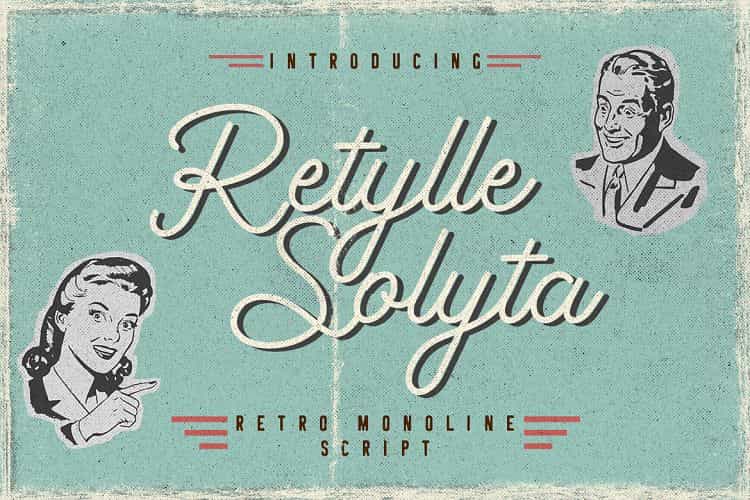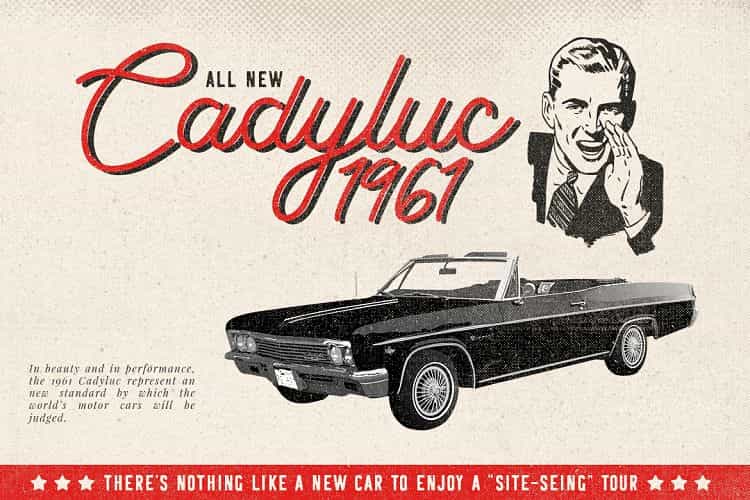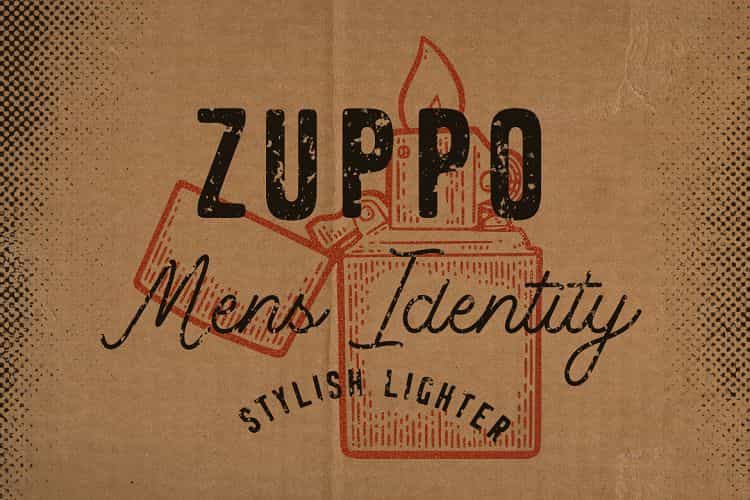
Introducing Retylle Solyta Font. Retylle Solyta Script Font is a lovely monoline retro script font that could be used for many different purposes and projects. Retylle Solyta is the best for branding projects, logo, wedding designs, social media posts, advertisements, product packaging and product designs. Also it can be used on label photography watermark invitation stationery and any project that needs handwriting taste.